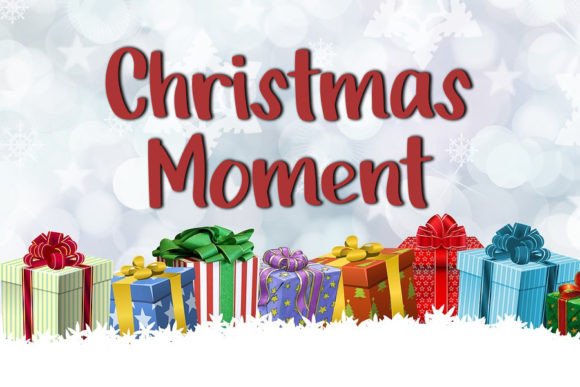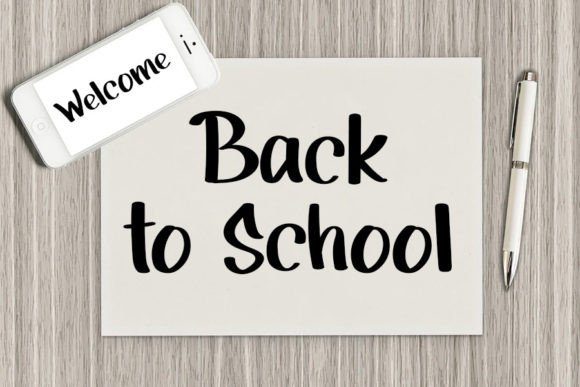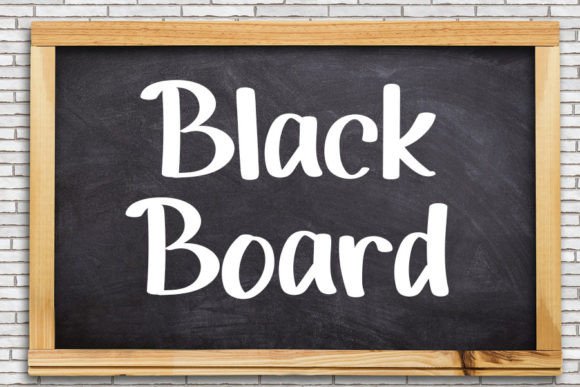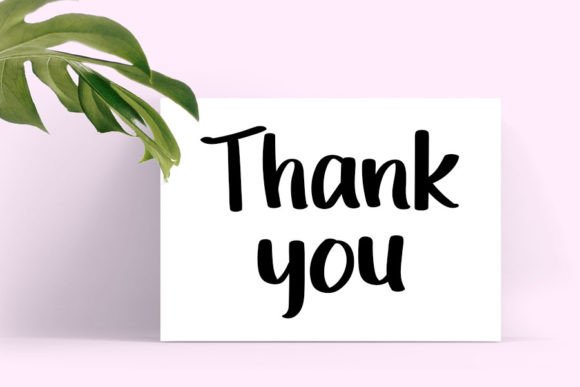
About Snowman Font
Snowman font brings a charming and elegant handwritten touch to all your creative projects. Designed with smooth strokes and a natural flow, this font is ideal for adding a personalized feel to any design. Its stylish yet approachable look makes it perfect for a variety of uses, especially where warmth and sophistication are needed.
Elegant Handwritten Style
The Snowman font stands out for its beautiful balance between charm and elegance. The delicate curves and fluid lines create a handwriting style that feels both personal and polished. It captures the essence of genuine handwritten script, making your projects appear unique and crafted.
Perfect for Special Occasions
This font excels on projects that require a heartfelt and refined touch. Use Snowman font for:
Wedding invitations: Add romance and elegance to your special day announcements.
Thank you cards: Convey sincerity with a warm handwritten style.
Greeting cards: Create inviting and memorable designs.
Logos and branding: Build a personal connection with your audience.
Business cards: Impress with a sophisticated yet look.
Versatile and Easy to Use
Whether you’re working on digital or print designs, the Snowmanfont adapts beautifully. Its clear legibility combined with an artistic flair makes it suitable for professional and personal projects alike. The font enhances visual by delivering warmth and personality in every letter.
Why Choose Snowman Font?
Choose Snowmanfont if you want a handwritten typeface that balances elegance and friendliness effortlessly. It’s perfect for anyone aiming to bring a classic yet heartfelt style to their work. This font guarantees to elevate your designs and make them stand out with and charm.